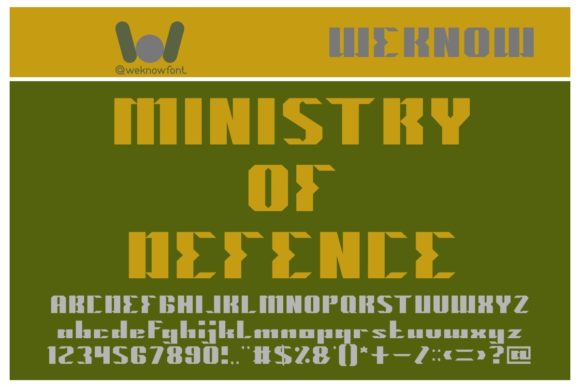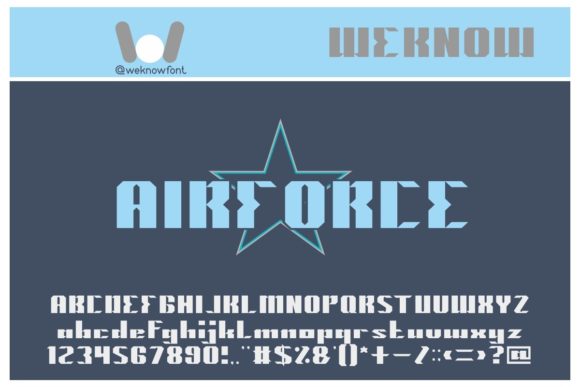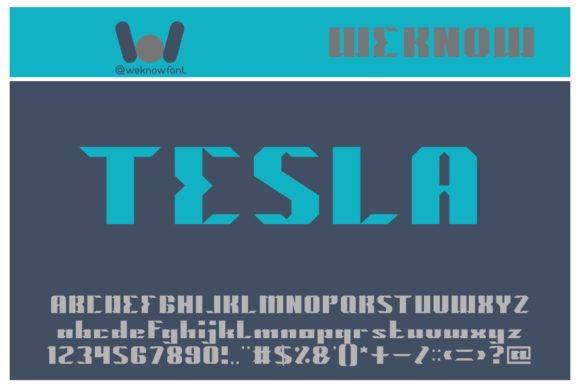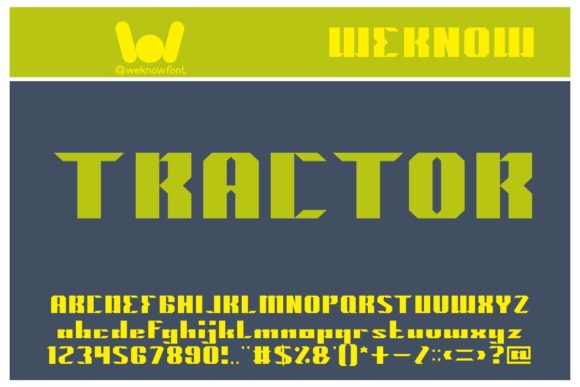
Introduction to Machine Gun Font
Machine Gun is a cool and bold display font.
Machine Gun Font offers exceptional quality and versatility, making it a valuable addition to your design toolkit. Whether you’re creating for personal projects or commercial use, Machine Gun Font delivers professional results.